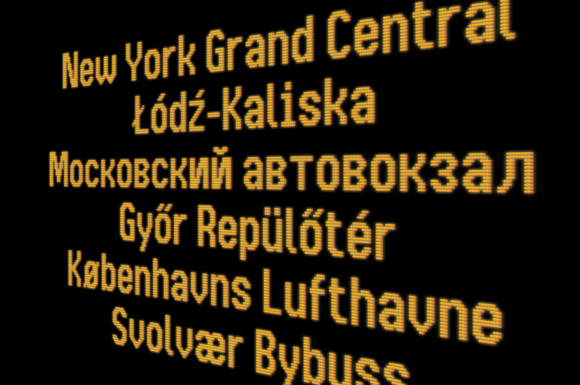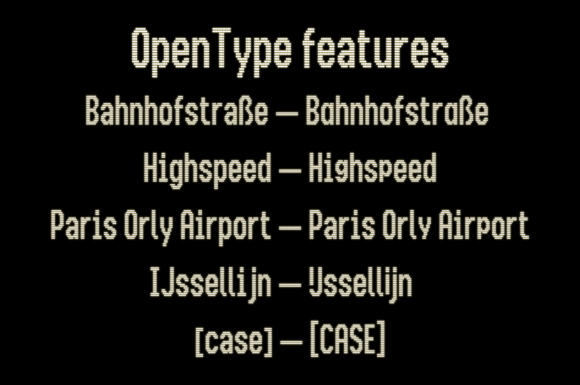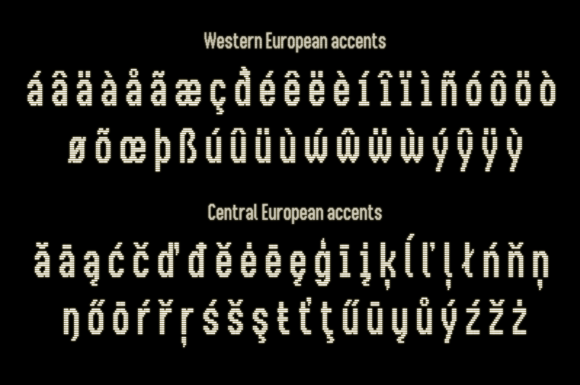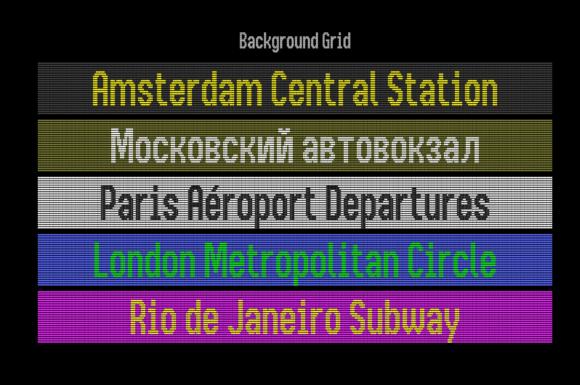
Adding a Touch of Urban Charm to Your Designs
Have you ever been standing at a bustling bus terminal, surrounded by the sounds of honking horns and the hum of engines? It’s in these moments that inspiration strikes, and the world around us becomes a canvas of creative possibilities. For designers, the urban landscape is a treasure trove of ideas, and Bus Matrix Font is one such treasure that can breathe life into your projects.
Bus Matrix Font is a unique typographic style inspired by the bold announcements found in bus terminals. Its industrial aesthetic and urban vibe make it the perfect addition to any design project that needs a touch of grit and sophistication. Whether you’re working on a poster, a brochure, or a website, Bus Matrix Font can elevate your design and make it stand out from the crowd.
Key Features of Bus Matrix Font
- Unique Characteristic: Bus Matrix Font features a unique matrix-like design, with each character composed of a series of interconnected blocks.
Bus Matrix Font Review
Overall, I found the Bus Matrix Font to be a unique and interesting choice for digital displays. ✨ The font’s angular lines and geometric shapes create a visually striking effect that could be well-suited for futuristic or high-tech designs.
One of the strengths of the Bus Matrix Font is its versatility. ✨ It can be used in a variety of contexts, from signage to digital interfaces, and its distinctive look can help to draw attention and create a sense of drama. ✨ Additionally, the font is highly legible, even at small sizes, making it a good choice for applications where space is limited.
- ⚠️ Limited character set: The Bus Matrix Font has a relatively limited character set, which may make it difficult to use in applications where a wide range of characters is required.
- ⚠️ Not suitable for body text: While the font is great for headlines and titles, it may not be the best choice for body text, as its angular lines and geometric shapes can make it difficult to read for extended periods.
Overall, I would recommend the Bus Matrix Font for designers looking to create a unique and eye-catching visual identity. While it may have some limitations, its versatility and striking design make it a valuable addition to any design toolkit.
Getting the Most Out of It
The Bus Matrix Font is perfect for creating eye-catching titles, headings, and graphics. To get the most out of it, experiment with different font sizes, colors, and styles to create a unique look.
The Bus Matrix Font is commonly used for:
- Creating retro-style graphics and posters.
- Designing video game-inspired titles and headings.
- Adding a futuristic touch to your designs.